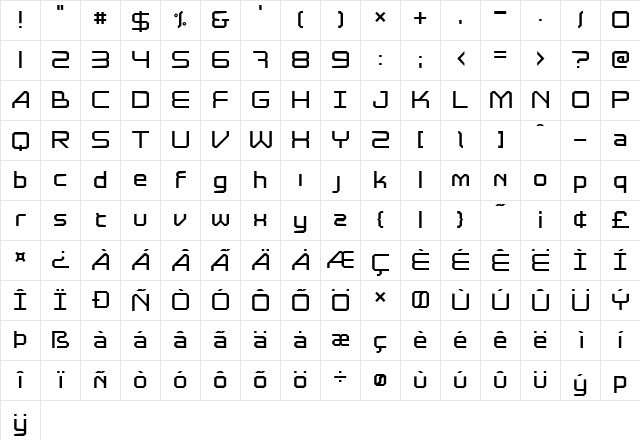
Astrolyte Regular
| Designer | Andreas Nylin |
Design Context for Astrolyte Typeface
Astrolyte takes a measured approach to typography — its balanced proportions and neutral character make it a reliable workhorse for both digital and print work.